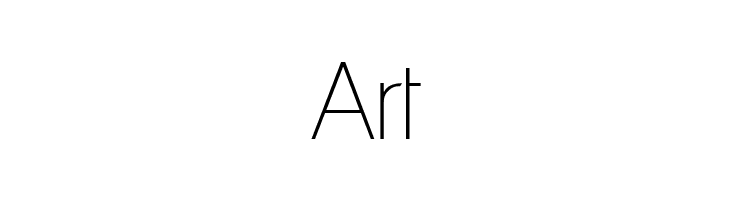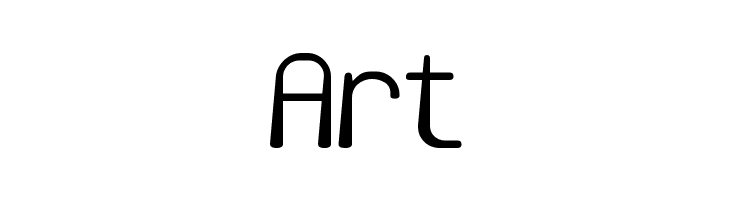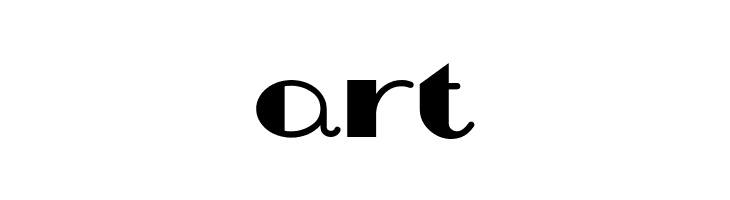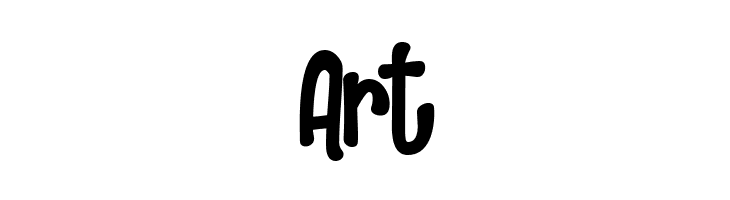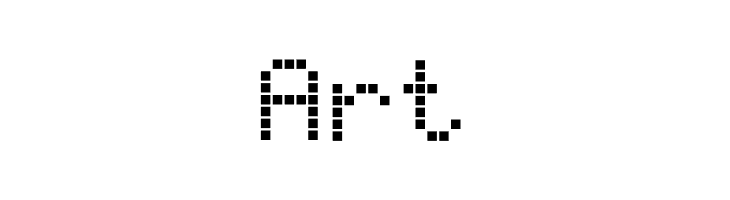
A sleek, narrow sans-serif font with a modern and minimalist design.
A modern, monospaced font with a geometric and rounded design.
A modern, geometric font with bold, angular characters and unique design elements.
A bold, playful font with geometric and curved elements, ideal for creative designs.
A bold, geometric font with a modern and assertive style.
A bold, playful font with a hand-drawn, whimsical style and heart motifs.
A modern, playful font with rounded, interconnected characters and a futuristic look.